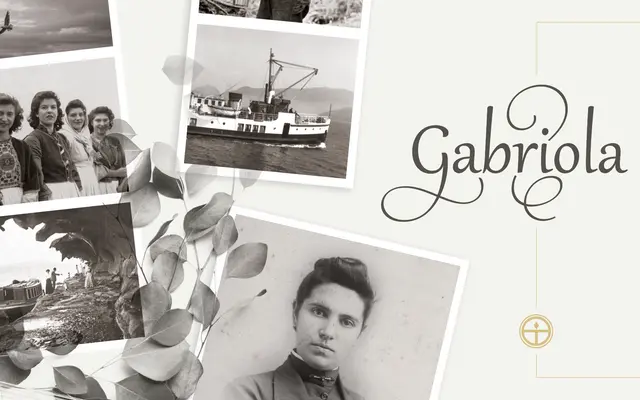
Gabriola
Tiro Typeworks · John Hudson, Marian Bantjes
A single-style display serif by John Hudson with flourish design by Marian Bantjes, offering an exceptional range of OpenType stylistic alternates rooted in Renaissance calligraphic tradition.
Designed by John Hudson with Marian Bantjes contributing the elaborate flourish variants, Gabriola draws on Renaissance pen lettering to produce a display serif of considerable ornamental depth. The font ships in one style but carries 4,517 glyphs, covering extended Latin, Cyrillic and Greek alongside numerous stylistic alternates and swash variants accessible via OpenType features. Originally developed in connection with Microsoft, it remains one of the more typographically ambitious display faces to emerge from that collaboration.
Gabriola is a display serif with extensive flourish variants, drawing on Renaissance calligraphic traditions; its elaborate stylistic alternates and swashes place it firmly in the display category.